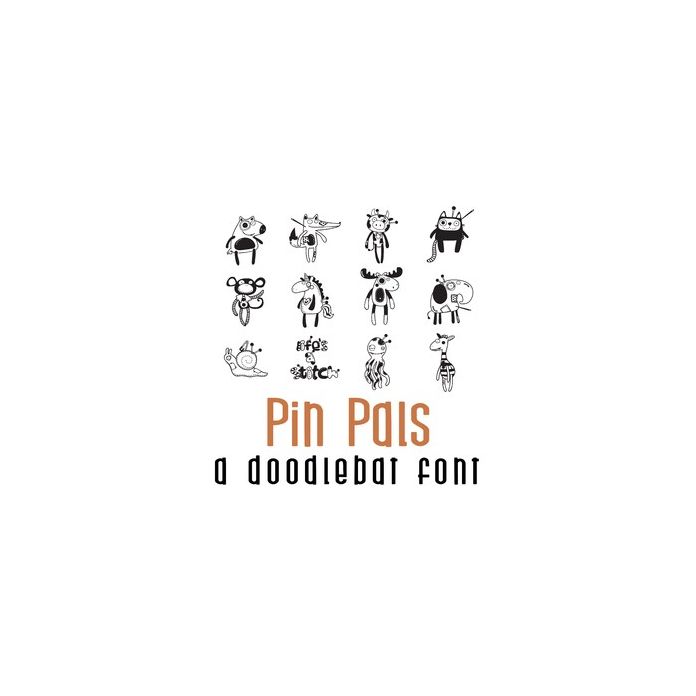
Pin Pals Doodlebat Font
This fun doodlebat font features 26 adorable pin cushion animals perfect for cards, crafts, decor, planner stickers, scrapbook pages and more!